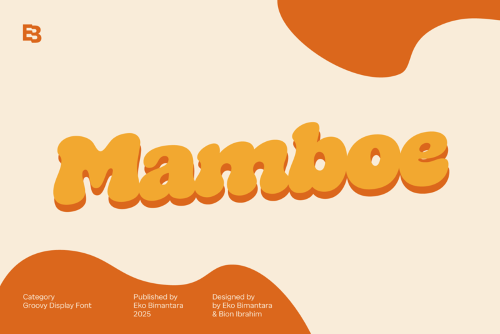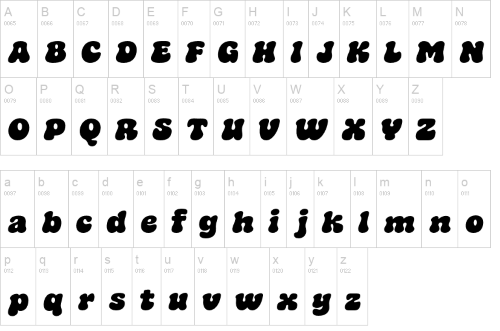
Mamboe Font
Mamboe Font brings a lively handwritten flair with organic curves and a relaxed, natural flow. Its casual strokes evoke creativity, warmth, and a friendly handmade feel, making it perfect for logos, packaging, invitations, crafts, and playful branding. Mamboe adds personality and artistic charm to any design that seeks authenticity and ease.
Font Name:  Mamboe Font
Designer: Eko Bimantara
Style: Fancy